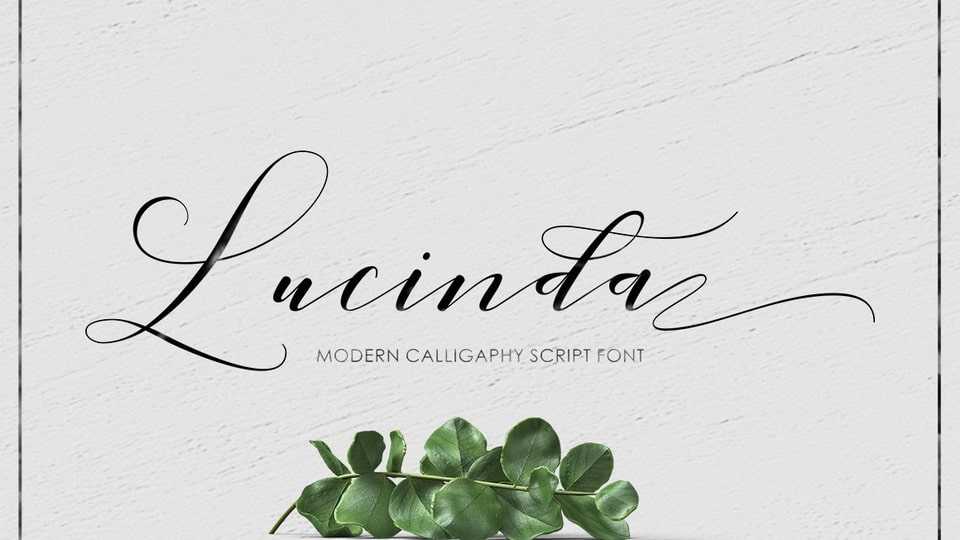
Download Lucinda font, an enchanting handwritten typeface. This versatile script font has a wide spectrum of applications ranging from greeting cards to headlines.